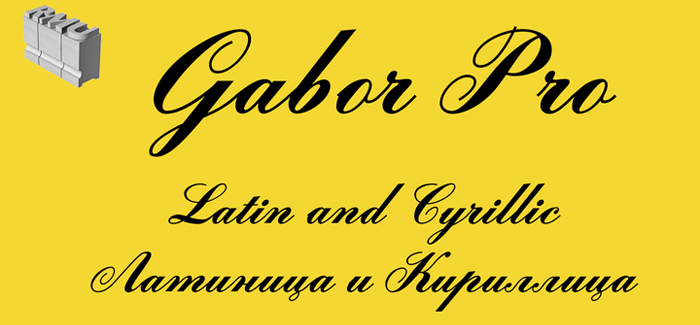
Gabor Pro font
Gabor Pro font by Ralph M. Unger (RMU) is a slanted multilingual script – a reminiscent of the good old Roundhand calligraphy. The typeface comes with a plenty of ligatures, decorative figures, alternatives, initials and final forms, as if inspired by the English writing masters in the Age of Reason. Gabor Pro font provides multilingual support and OpenType features.
Designers: Ralph M. Unger
Publisher: RMU